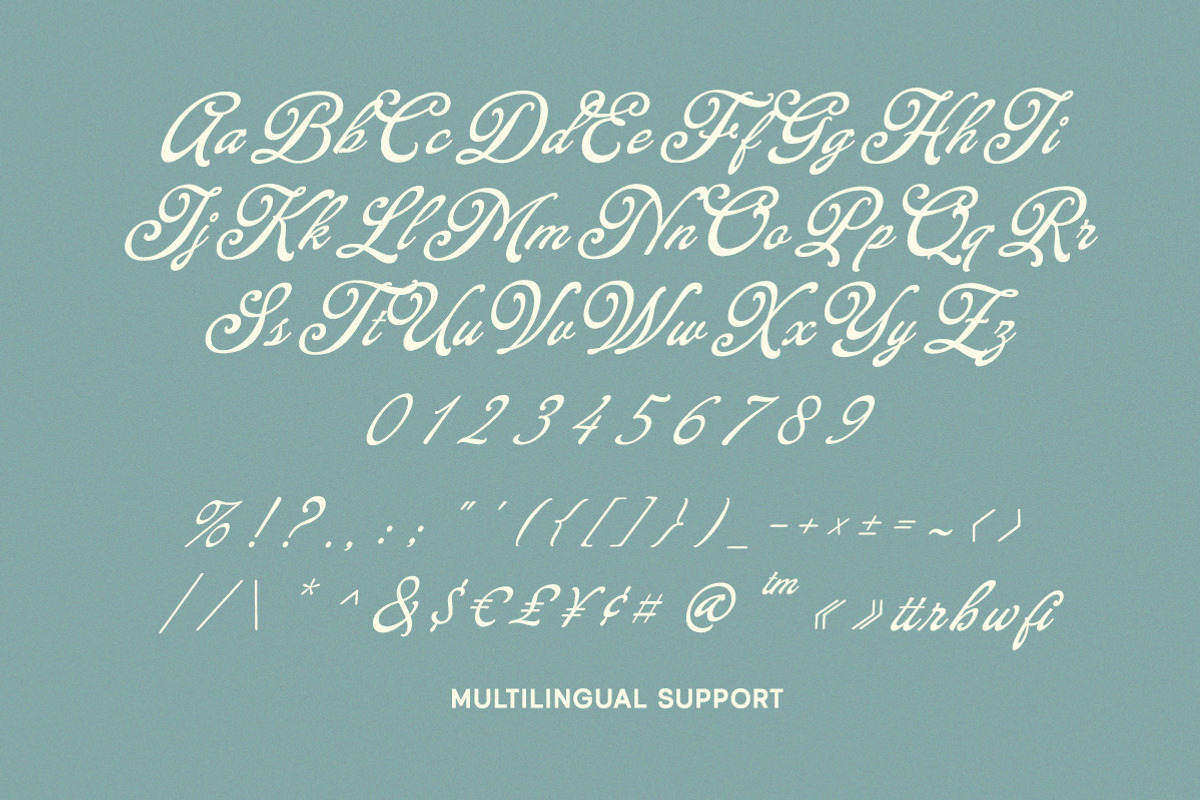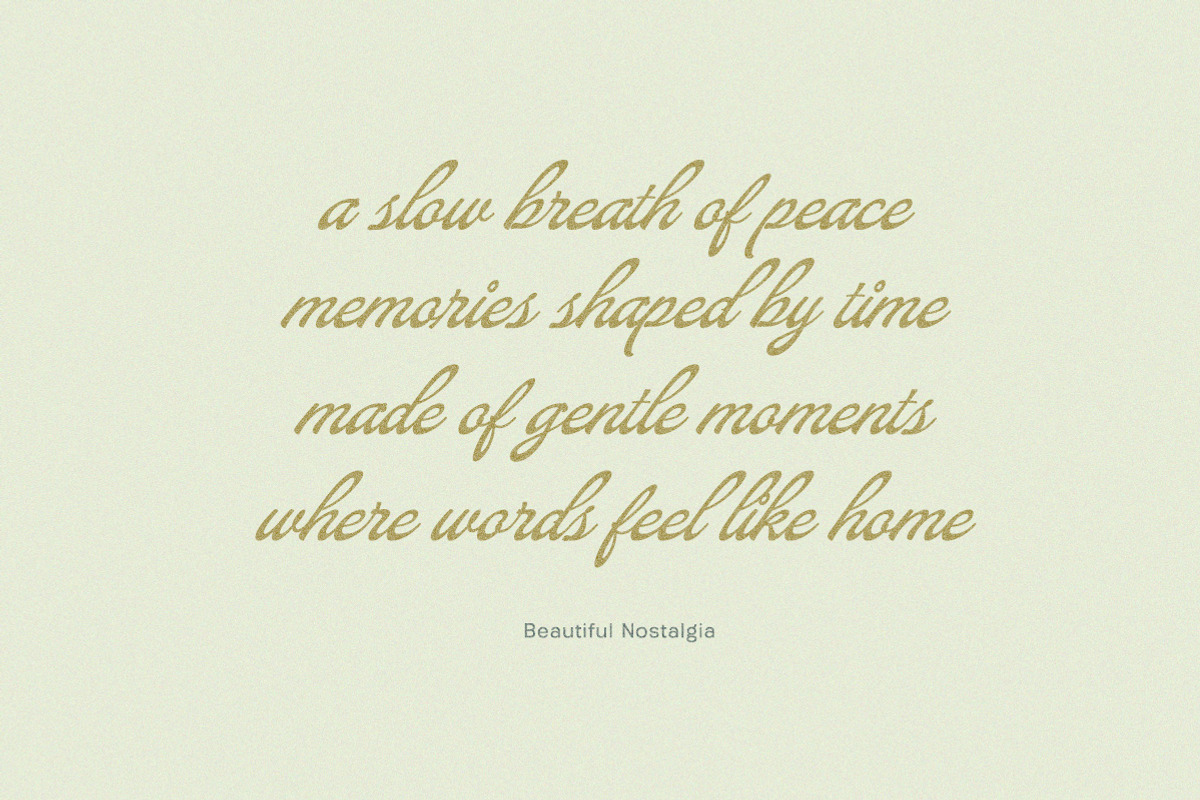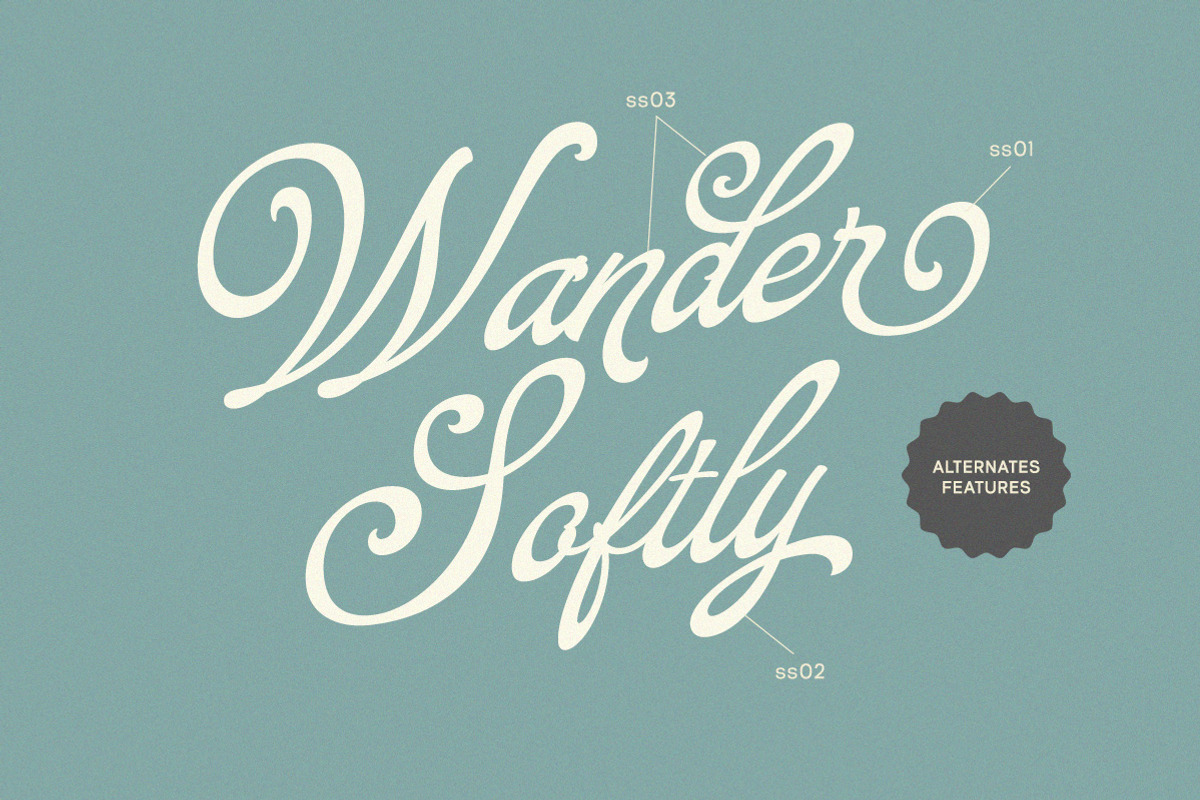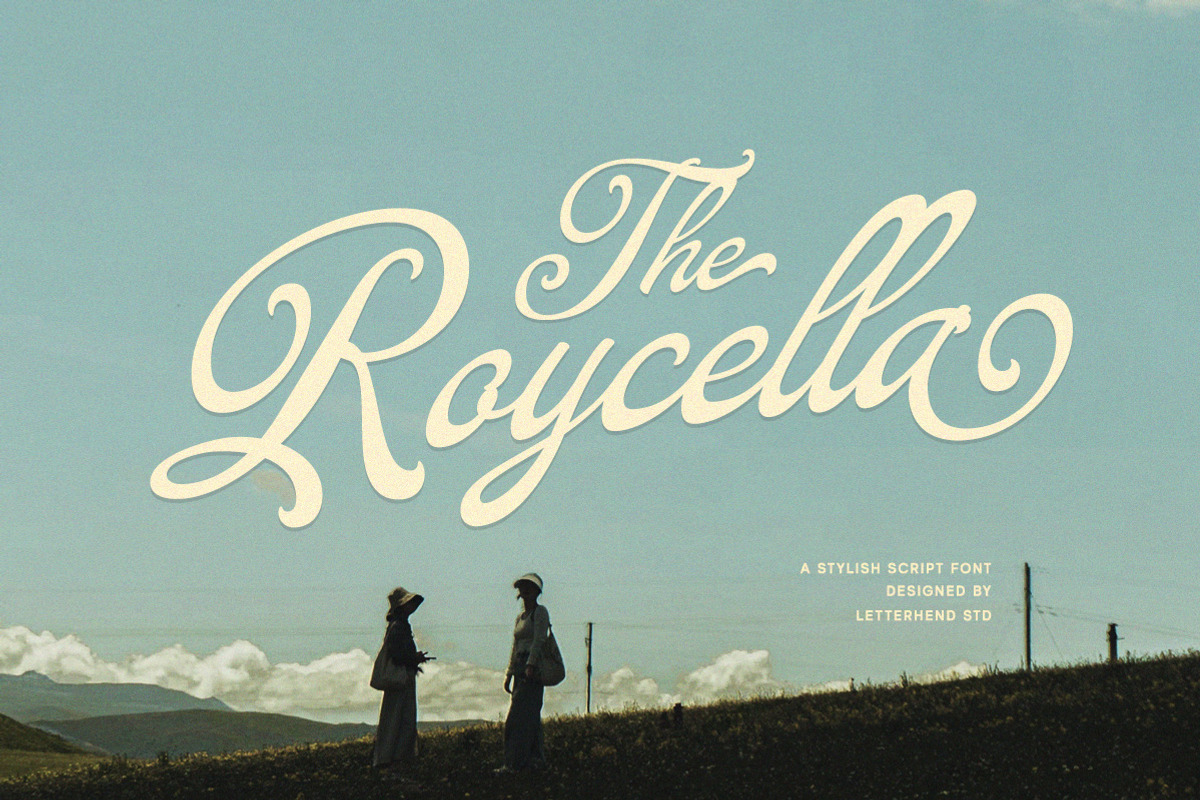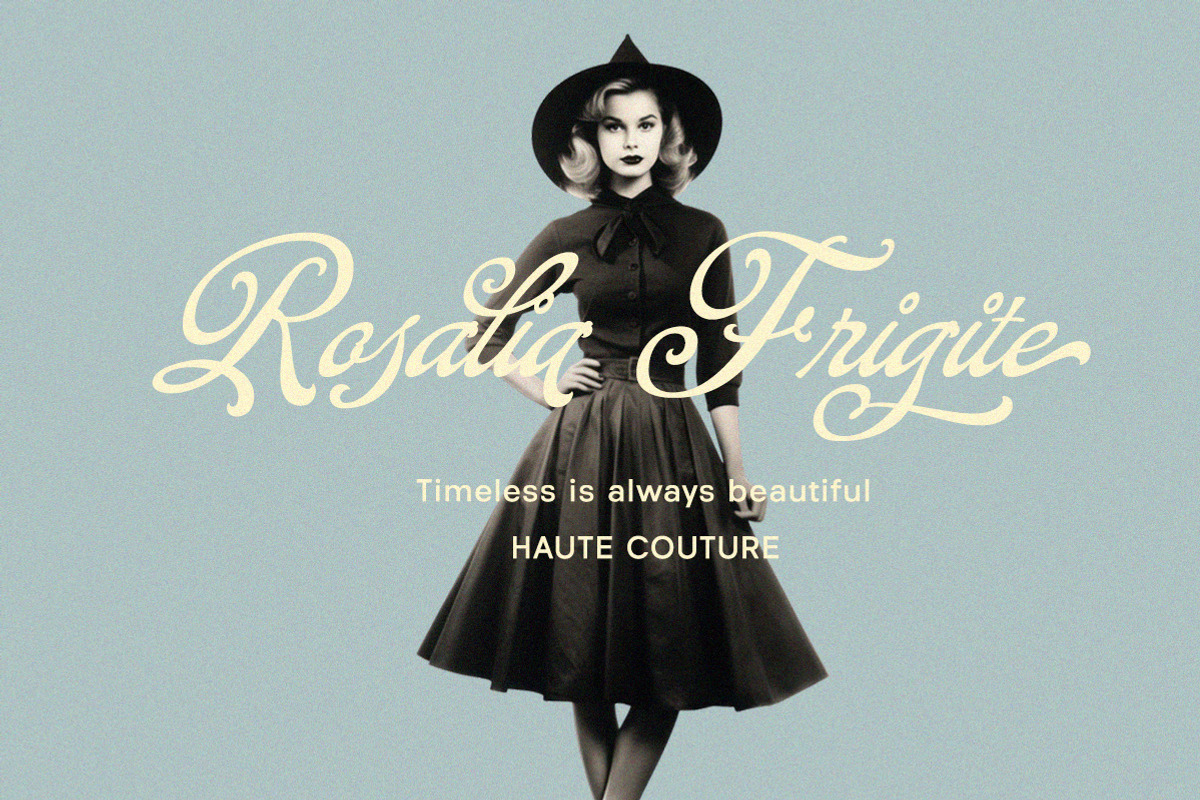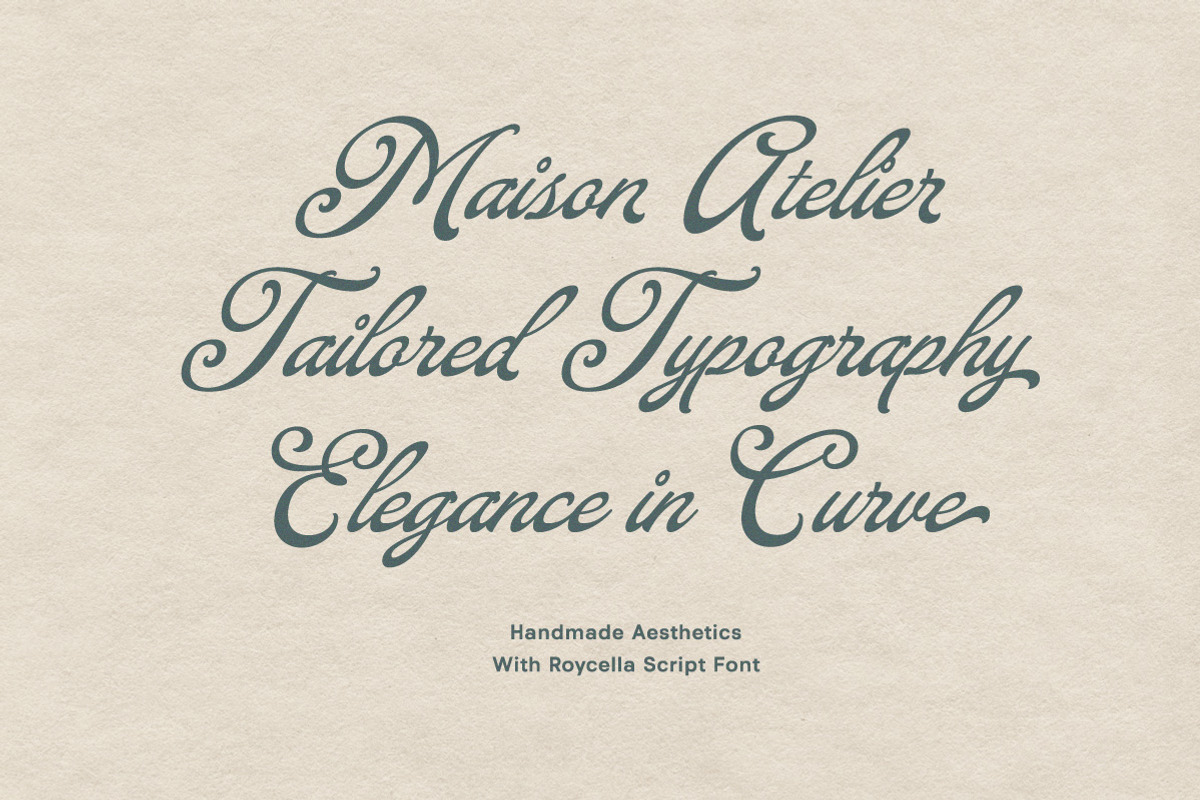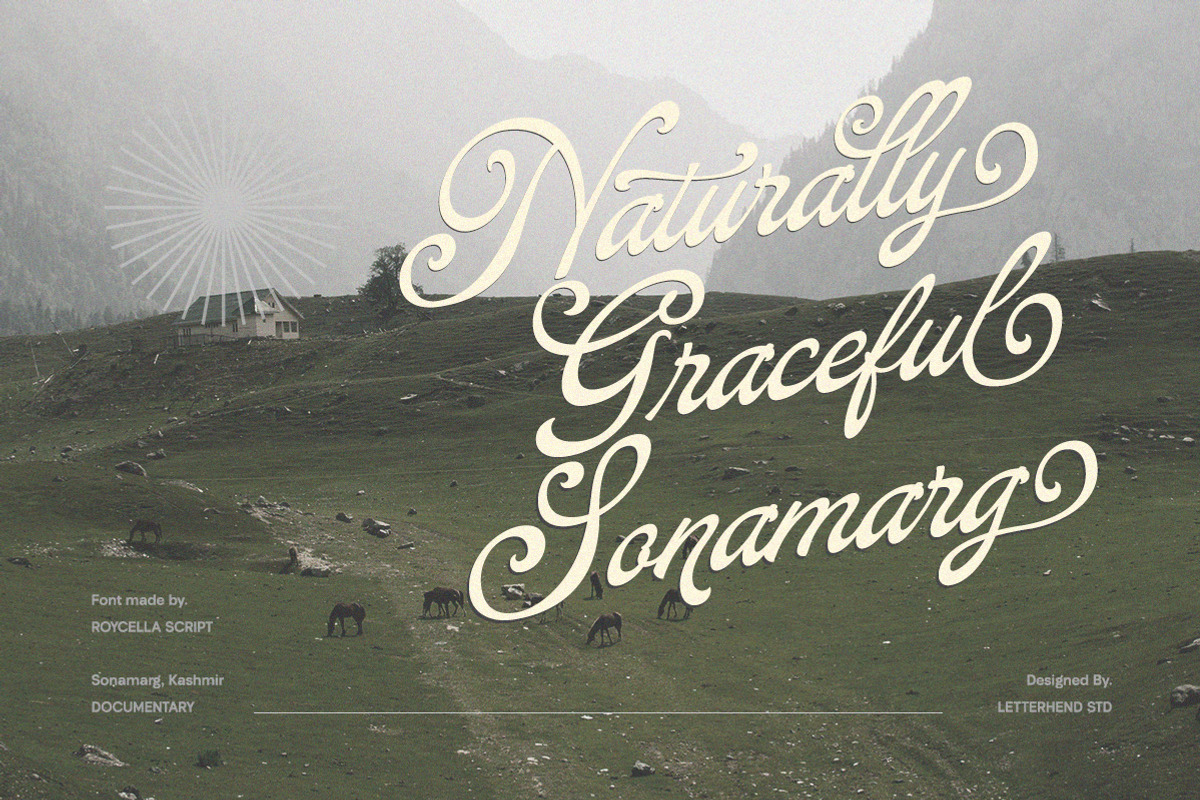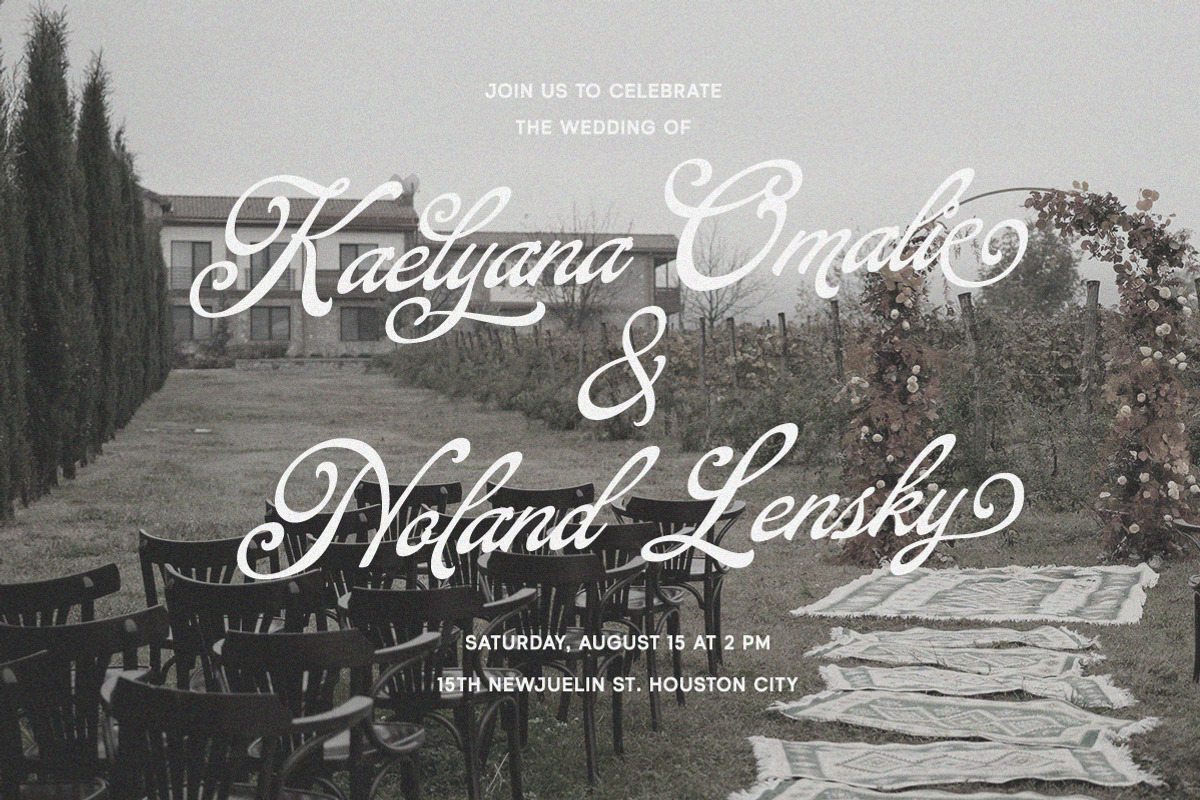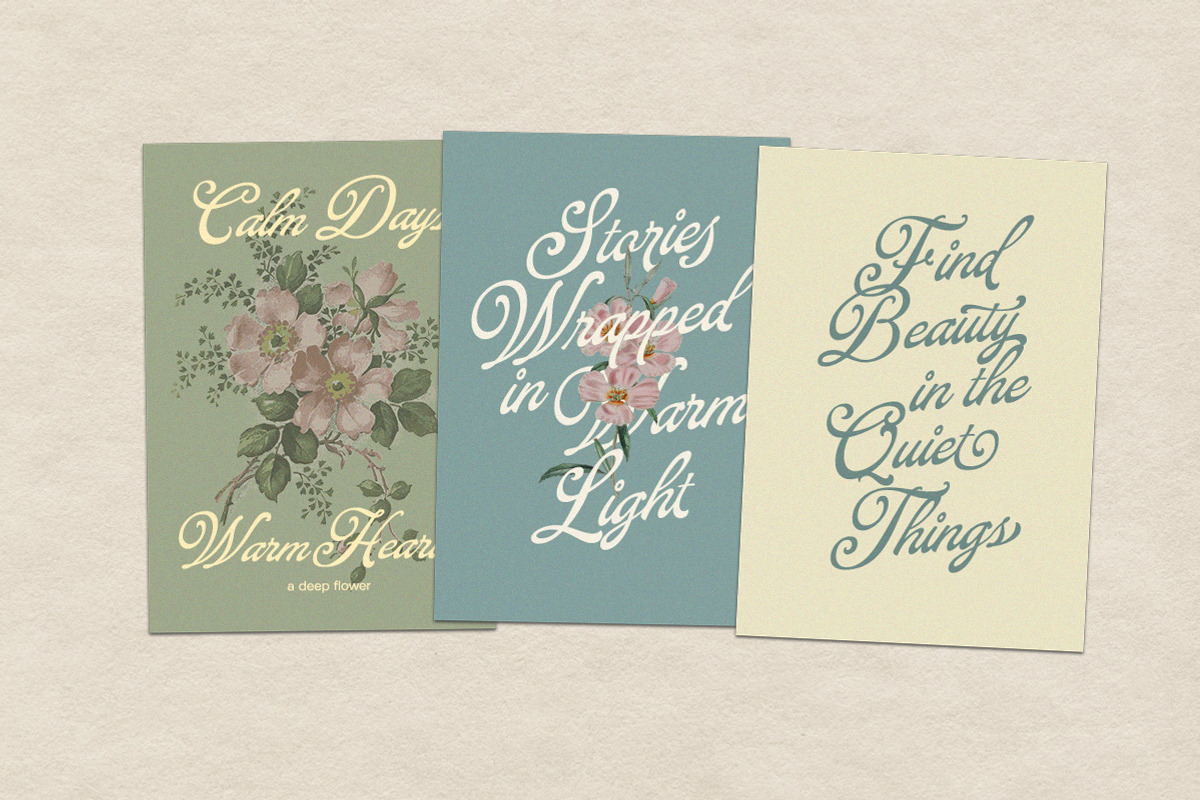
The Roycella Script
The Roycella is an elegant, vintage-inspired script font with sweeping curves, long flowing swashes, and a refined handwritten grace that feels cinematic and timeless. Its smooth strokes and romantic rhythm evoke classic title cards, countryside nostalgia, and warm storybook charm.